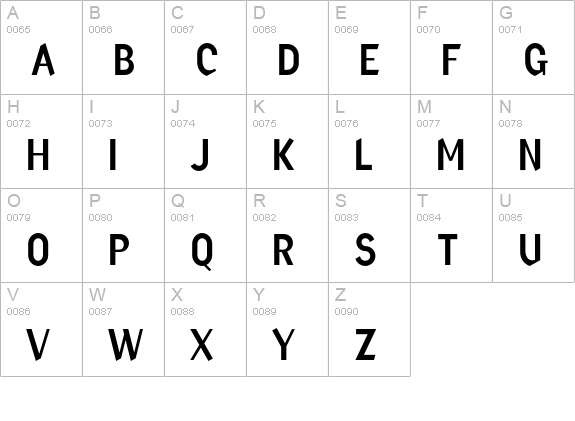
Introducing Factory, a sleek and modern font that will elevate your designs to new heights. This versatile typeface is the perfect choice for any project that requires a clean and professional look. With its sharp edges and bold lines, Factory exudes confidence and sophistication. But what sets Factory apart from other fonts is that it is completely free! That's right, you can download this amazing font absolutely free at FontsMarket.com. Whether you're a professional designer or just starting out, Factory allows you to create stunning visuals without breaking the bank. With a wide range of weights and styles, Factory offers endless possibilities for your creative endeavors. From eye-catching headlines to elegant body text, this font is sure to make a lasting impression. Its legibility and readability ensure that your message will be clear and impactful. The attention to detail in Factory is truly remarkable. Each character is meticulously crafted, making this font a work of art in its own right. Its balanced proportions and harmonious curves create a harmonious rhythm that is pleasing to the eye. Whether you're designing a logo, a website, a poster, or anything in between, Factory is the perfect choice. It's a font that combines style and functionality, making it the go-to option for designers around the world. And the fact that it's free makes it even more appealing. So why wait? Download Factory today from FontsMarket.com and start creating stunning designs that will leave a lasting impression. With its sleek and modern aesthetic, this font is sure to elevate your projects and help you stand out from the crowd. Don't miss out on this amazing opportunity to enhance your creativity with a font that is both stylish and free.